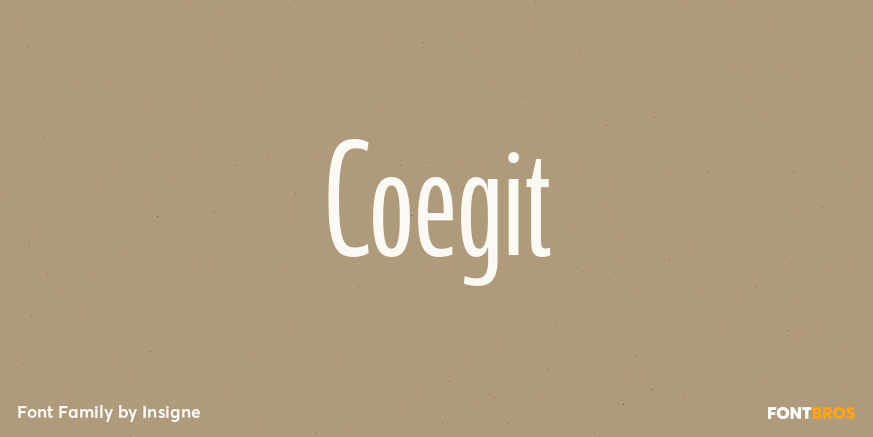
Coegit
About Coegit
In the world of webfonts, Condensed proportions are key to maximizing your page\’s premium real estate while keeping your copy clean and catchy as you cut down to the essentials. Soon after the introduction of webfonts, I began to see Insigne\’s Le Havre…